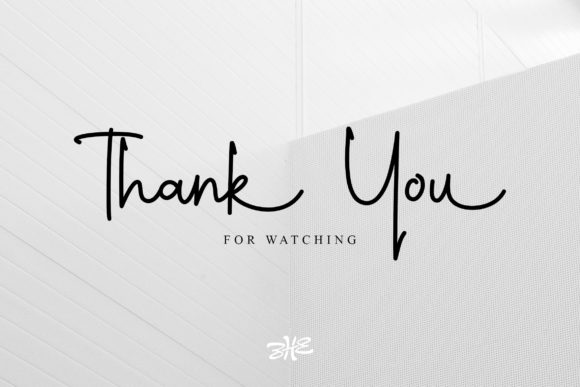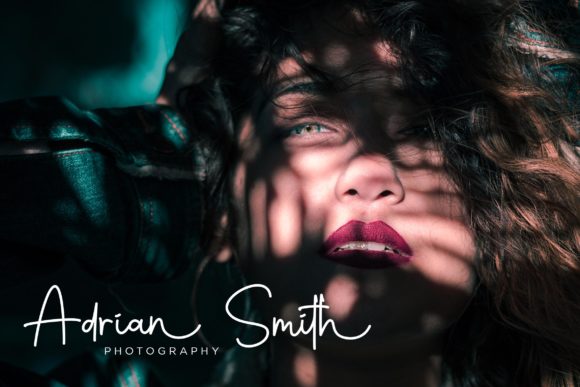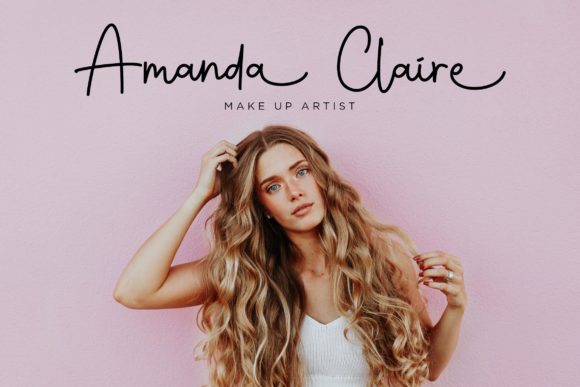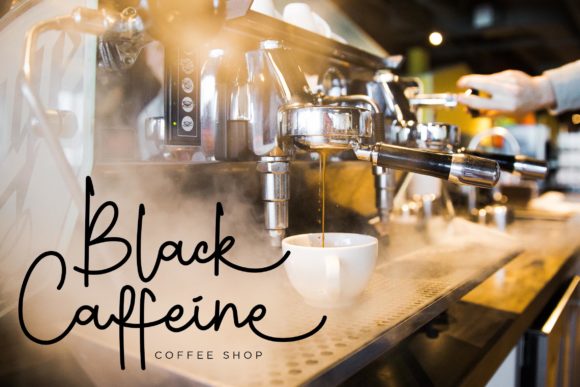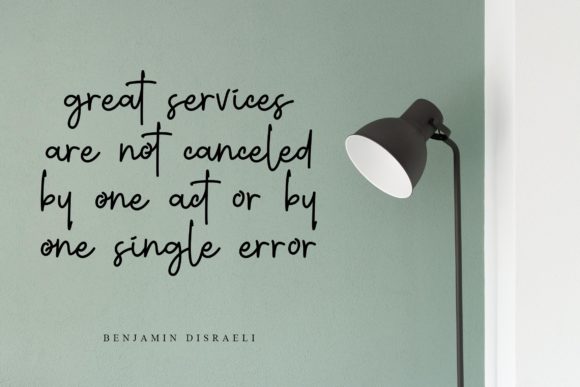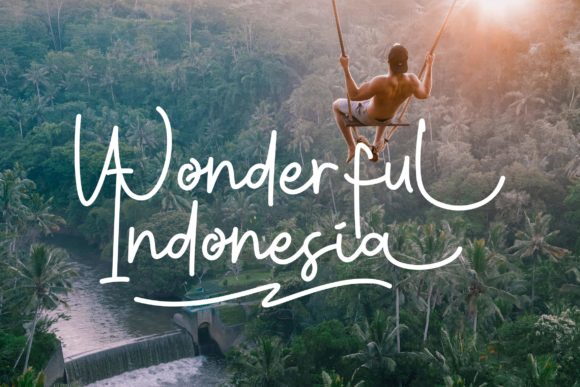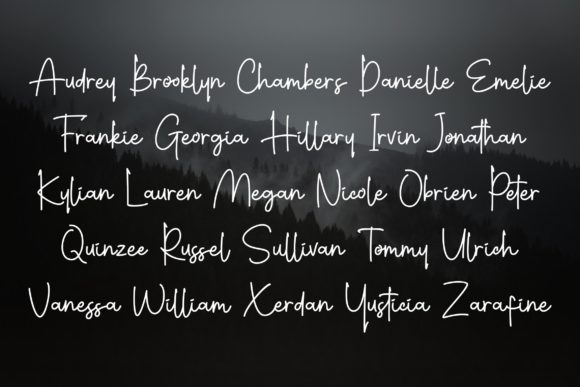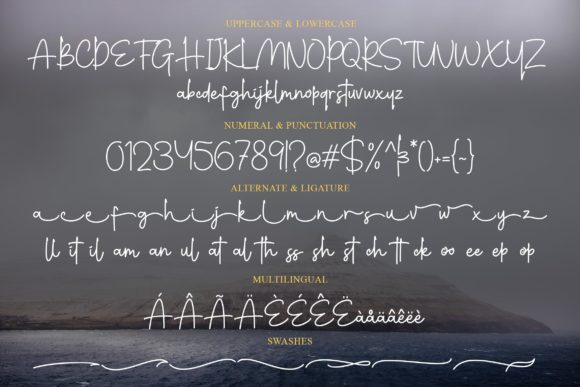
Wynstelle Script Font
About Wynstelle Script Font
The Wynstelle Script is a handwritten typeface with an elegant, yet striking style. It’s perfect for letterheads, vintage apparel designs, headlines, logotype, posters, cards, and much more!